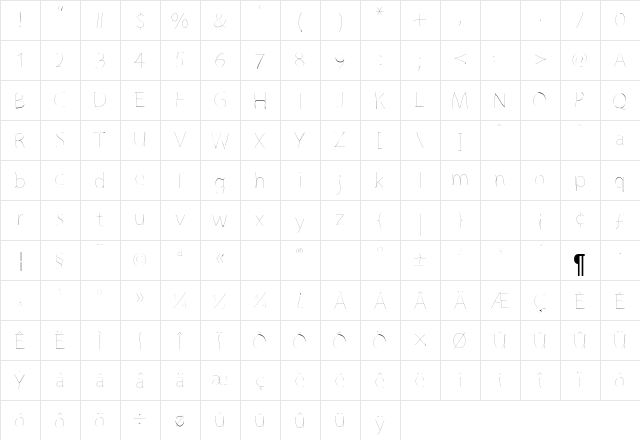
GrutchLine Regular
| Foundry | Monotype Typography, Inc. |
| Designer | Robin Nicholas, Patricia Saunders |
Design Context for GrutchLine Typeface
GrutchLine takes a measured approach to typography — its balanced proportions and neutral character make it a reliable workhorse for both digital and print work.